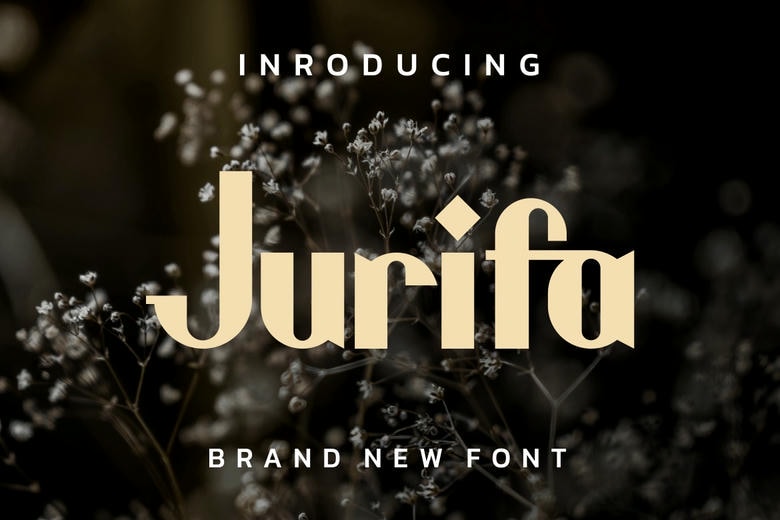
Jurifa Font
Jurifa is a stylish and elegant sans-serif font with a modern feel. It works well for luxury and feminine projects, making it a great choice for creating chic, contemporary designs.
Jurifa Sans Serif Font